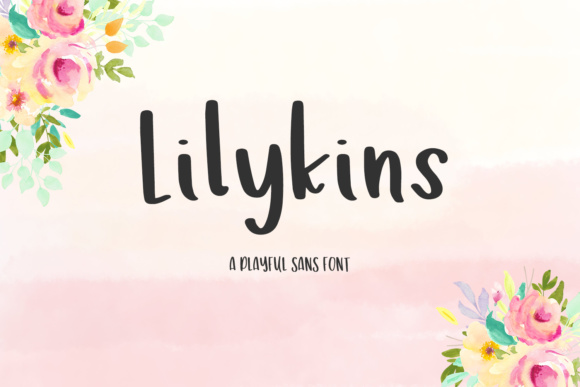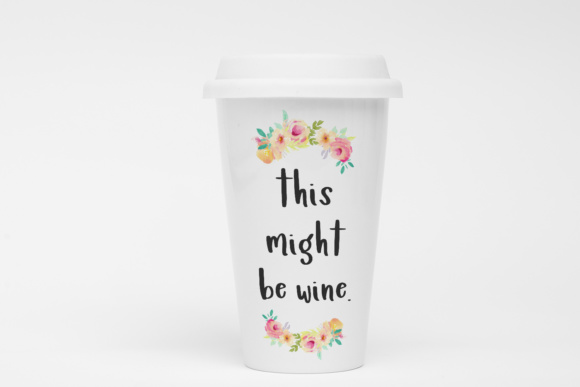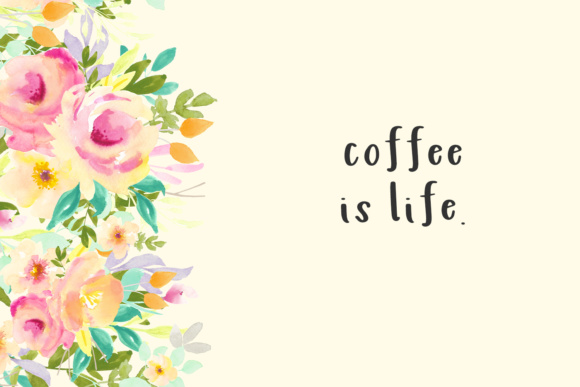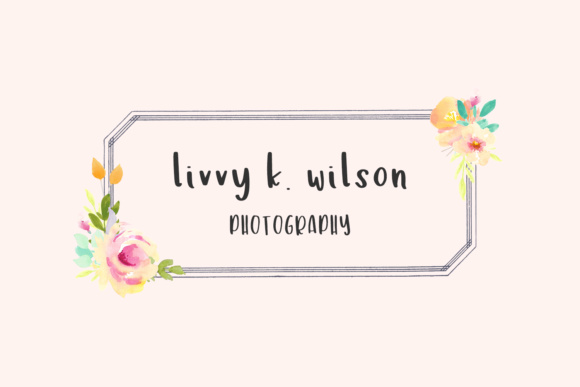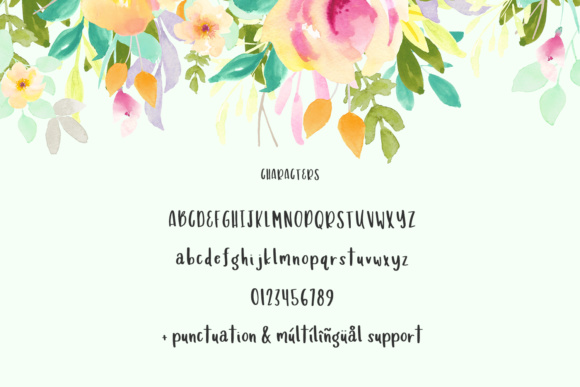
Lilykins Font
About Lilykins Font
Lilykins is a super adorable, fun hand-lettered sans font. This font is easy to read, and even easier to use; add some whimsical glamour to your work with Lilykins!